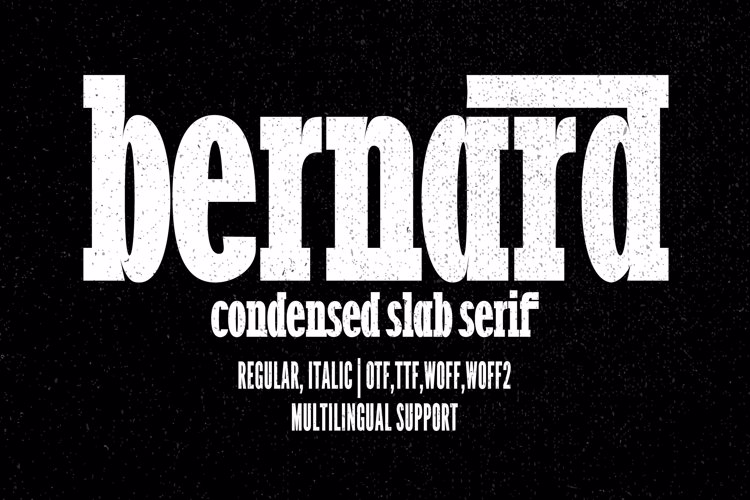
Bernard Font
๐จ Font Name: Bernard by Minimalist Art Studio
๐จ Font Description: Bernard is a condensed slab serif with multilingual supportโperfect for editorial headlines, vintage branding, and punchy packaging.